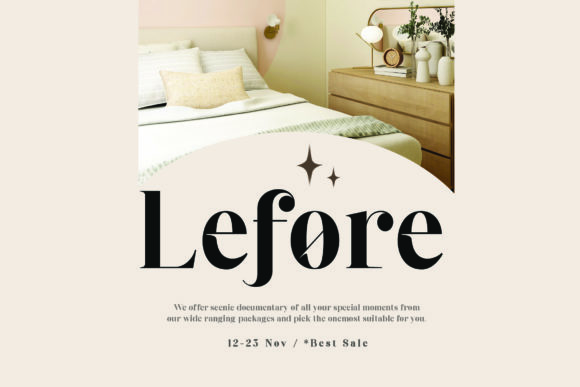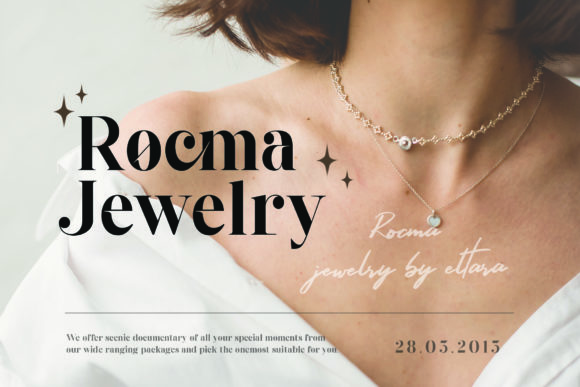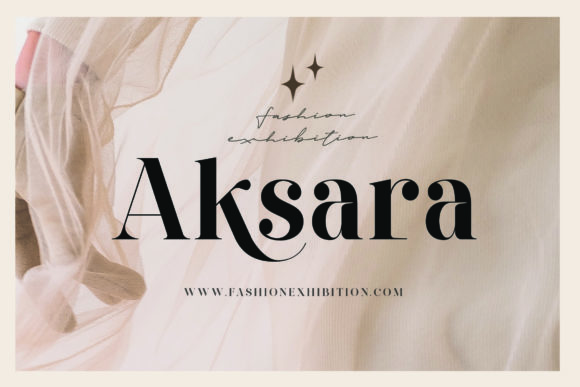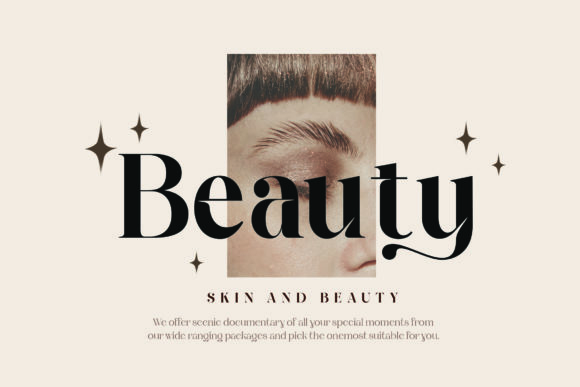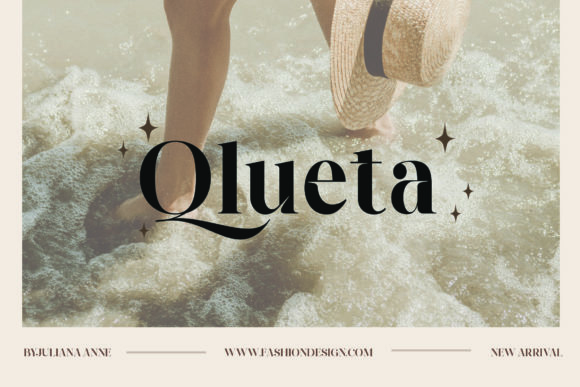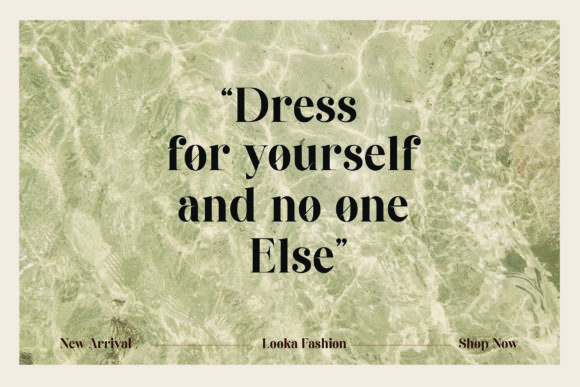
Introduction to Quincher Font
You know that moment when you’re brainstorming ideas for a creative project, and the perfect font pops into your mind, making everything fall into place? For designers, that ‘aha’ moment is priceless. It’s the spark that ignites the entire design process, and sets the tone for the rest of the project. For me, that moment came when I stumbled upon the Quincher Font – a modern and stylish serif font that’s perfect for adding a customized touch to any design.
Whether you’re working on a wedding invitation, a thank you card, or a logo, the Quincher Font is an excellent design resource that’s sure to elevate your project. With its high quality and versatility, it’s no wonder why designers are falling in love with this font. And the best part? It’s available for free download, making it an accessible addition to any design.
Key Features of Quincher Font
- High-quality, unique design that can be used as a design resource for various creative projects.
- Transparent background allows for seamless integration with different design elements and backgrounds.
- Quincher Font comes in a single weight, making it easy to use and versatile for different design needs.
- Perfect for designers and artists looking for a high-quality, free design resource for their creative projects.
Honest Review: Quincher Font
I recently had the chance to work with the Quincher Font for a creative project, and I must say it’s been a game-changer. This design resource is a high-quality addition to any designer’s toolkit, offering a unique and modern aesthetic.
Here are some of the things that work well with the Quincher Font:
- ✨ Unique and modern design: The Quincher Font is perfect for designers looking for something fresh and exciting to add to their creative projects.
- ✨ Transparent background: This feature allows for easy layering and manipulation of the font in design software.
That being said, there are a few limitations to keep in mind:
- ⚠️ Limited character set: While the font is perfect for headlines and titles, it may not be suitable for body text or other applications where a wider character set is required.
- ⚠️ Not suitable for all designs: The Quincher Font is a bold, statement font that may not be suitable for all design projects. Be sure to use it judiciously to avoid overwhelming your design.
Overall, I’m really impressed with the Quincher Font and would highly recommend it to designers looking for a high-quality, modern design resource.
The Quincher Font is a high-quality design resource perfect for adding a touch of elegance to your creative project. With its sleek and modern design, this font is ideal for a variety of applications, from branding to publishing.
Tips for Getting the Most Out of Quincher Font
Here are some tips for getting the most out of the Quincher Font:
- Use the font in conjunction with a transparent background to create a modern and sleek design.
- Experiment with different font sizes and colors to create a unique and eye-catching design.
- Combine the Quincher Font with other design elements, such as images and graphics, to create a visually appealing design.
Common Use Cases for Quincher Font
The Quincher Font is perfect for a variety of applications, including:
- Publishing and editorial design
- Marketing and advertising materials
Alternatives to Quincher Font
Open Sans is a popular sans-serif font that offers a clean and modern design. It’s suitable for a wide range of creative projects, including websites, magazines, and advertisements. Open Sans is available for free download and offers a transparent background, making it ideal for overlaying text on images.
Compared to Quincher Font, Open Sans has a more minimalist aesthetic and is often used in digital design. While Quincher Font is more decorative, Open Sans is a versatile choice for high-quality design resources.